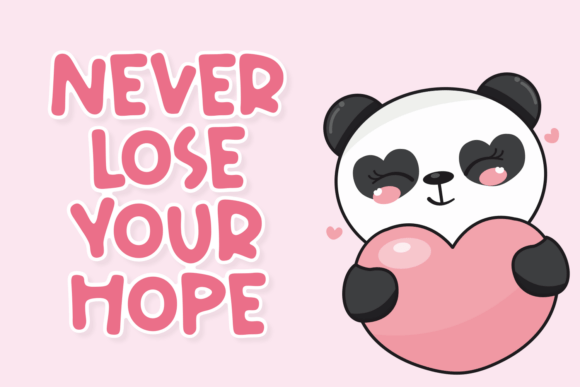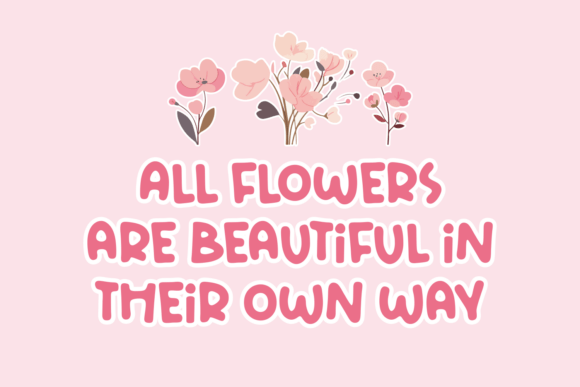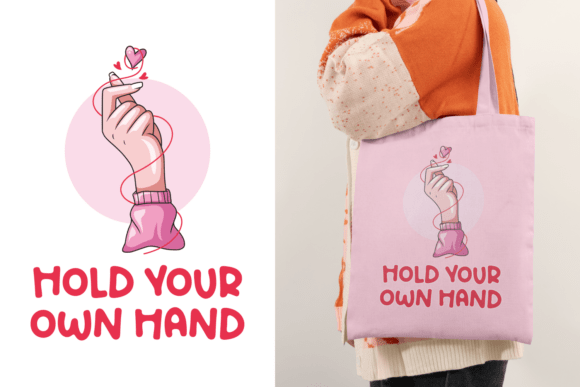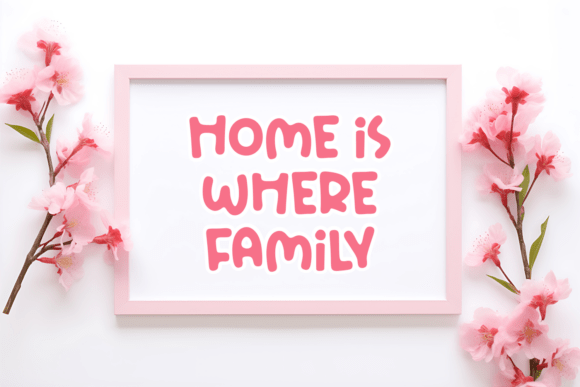
The Birth of a Beautiful Design
Have you ever found yourself scrolling through a beautifully designed social media post, only to wonder what inspired the creator behind it? Maybe it was a romantic gesture, a heartfelt message, or a creative spark that ignited the idea. Whatever it was, it’s safe to say that the right tools can make all the difference in bringing your vision to life.
That’s where the Kindly Fellow Font comes in – a versatile and charming compilation of fonts designed to capture the essence of love, beauty, and fashion. With its authentic hand-drawn charm and clean layout, this font is a valuable asset for designers seeking to add a touch of uniqueness to their projects.
Whether you’re creating a brand logo, designing an apparel, or simply looking to enhance your social media posts, the Kindly Fellow Font is sure to inspire your creativity and help you achieve your design goals.
Kindly Fellow Font Key Features
- Font Family: Kindly Fellow Font is a unique, handwritten font designed to evoke a sense of warmth and friendliness.
- Font Size: Kindly Fellow Font is available in a range of sizes, from 8-point to 72-point, making it suitable for various applications, from body text to headlines.
- Resolution: Designed for print and digital use, Kindly Fellow Font is optimized for resolutions up to 300 DPI (dots per inch) for print and 72 DPI for digital use.
- Unique Characteristics: The font features a distinctive, hand-drawn feel with varying line widths, subtle imperfections, and a range of ligatures, making it perfect for creating a personal and inviting tone.
- Font Style: Kindly Fellow Font is available in two styles: Regular and Bold, offering flexibility for designers to create contrast and emphasis in their work.
Kindly Fellow Font Review
Overall, I have mixed feelings about the “Kindly Fellow Font”. On one hand, it has some lovely qualities that make it a great choice for certain projects, but on the other hand, it also has some limitations that might make it less appealing to others.
- ✨ Friendly feel: The font has a warm and inviting feel to it, making it perfect for projects that require a touch of personality.
- ✨ Good legibility: The font is easy to read, even at smaller sizes, which is a must for any font.
- ✨ Versatile: Kindly Fellow can be used for a wide range of projects, from logos to body text.
- ⚠️ Limited expressiveness: While the font has a friendly feel, it can come across as a bit too generic for some projects.
- ⚠️ Not ideal for small text: While the font is legible at larger sizes, it can become a bit fuzzy at smaller sizes.
- ⚠️ Limited support for non-English characters: The font may not support certain non-English characters, which can be a limitation for projects that require multilingual support.
Overall, I would say that Kindly Fellow is a solid choice for projects that require a friendly and approachable feel. However, it may not be the best choice for projects that require a lot of expressiveness or support for non-English characters.
Practical Application Guide: Kindly Fellow Font
Tips for Getting the Most Out of Kindly Fellow Font
Kindly Fellow Font is a versatile font that can be used in a variety of design projects. To get the most out of it, consider the following tips:
- Use it in conjunction with other serif fonts to create a classic look.
- Use it in headings and titles to add a touch of elegance.
Kindly Fellow Font is commonly used in:
- Business cards and brochures.
- Book covers and magazine
Alternatives to Kindly Fellow Font
Playfair Display is a high-end serif font ideal for luxury brands, magazines, and high-end publications. It features elegant lines, swashes, and a touch of sophistication. It is more formal and luxurious than Kindly Fellow Font, making it suitable for upscale designs.
Copperplate is a classic calligraphy font that adds a touch of elegance and sophistication to designs. It is perfect for invitations, wedding stationery, and other formal events. Copperplate is more ornate and formal than Kindly Fellow Font, making it suitable for high-end events and luxury brands.
What is the character set and language support for the Kindly Fellow Font?
The Kindly Fellow Font includes a comprehensive character set, covering Latin, Cyrillic, and Greek alphabets, as well as various symbols and punctuation marks. The font also includes support for Western European languages, including English, Spanish, French, German, Italian, and more. For a detailed list of supported languages and characters, please refer to the font’s documentation.